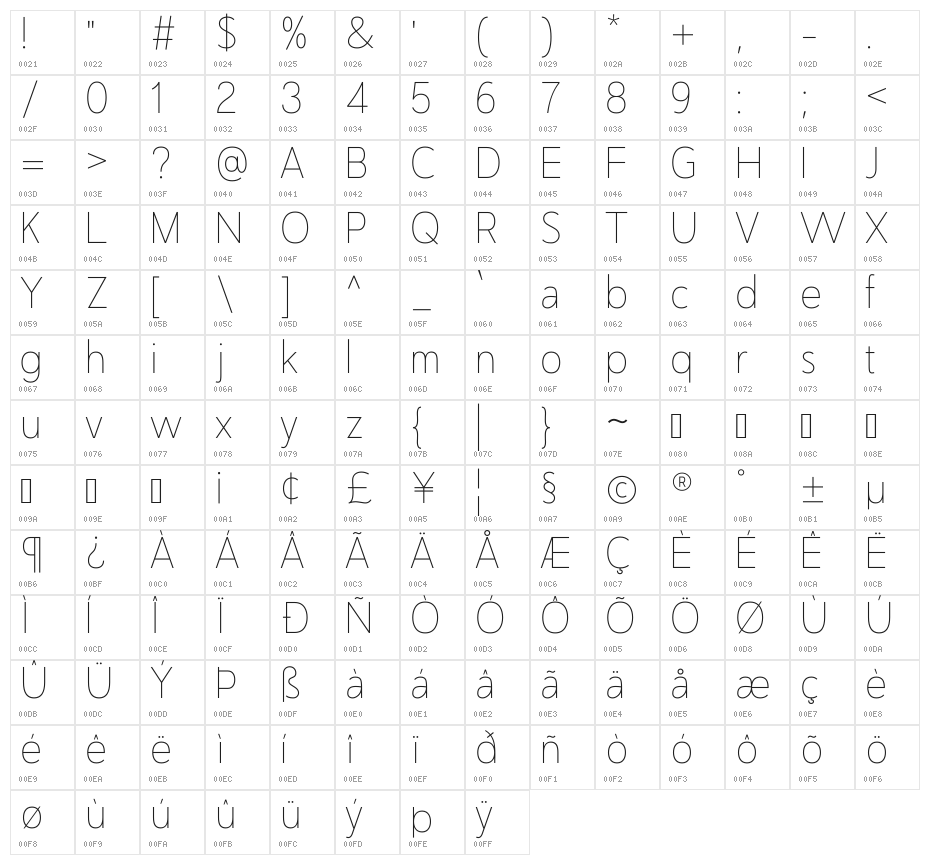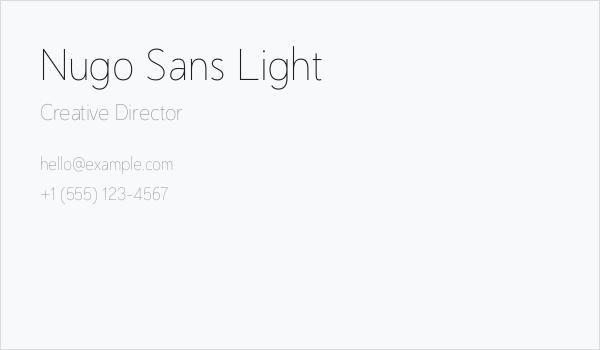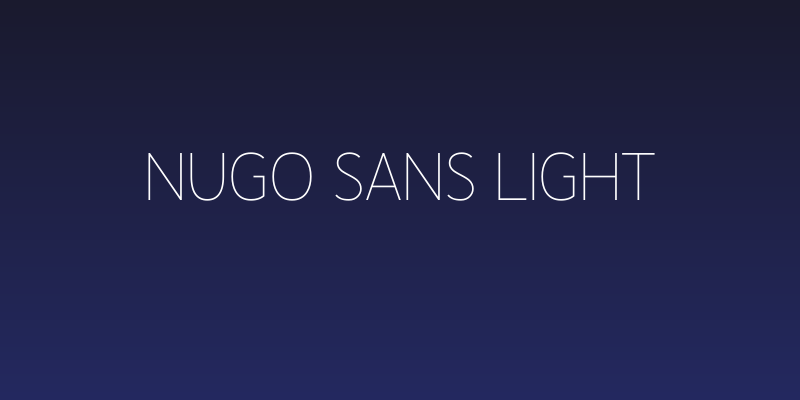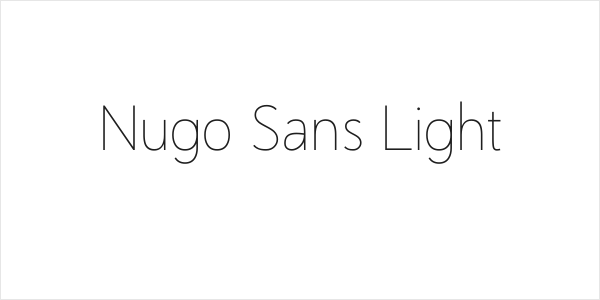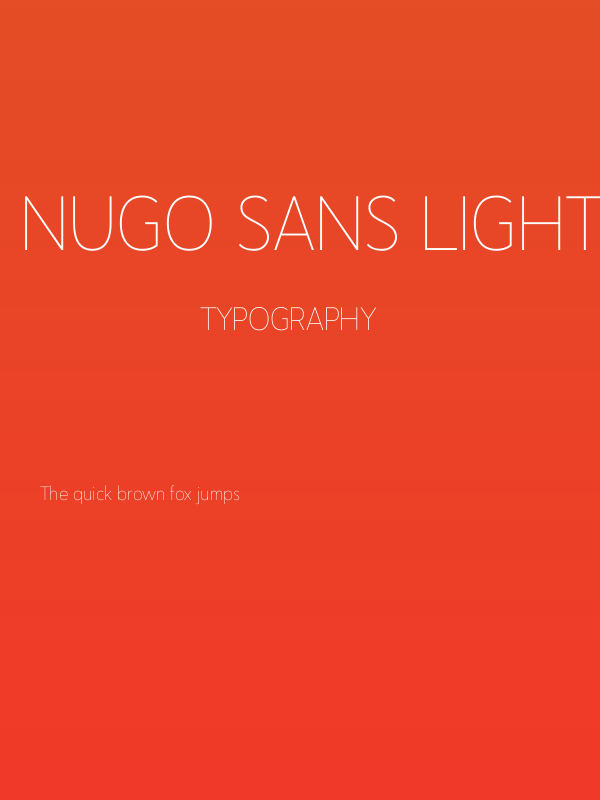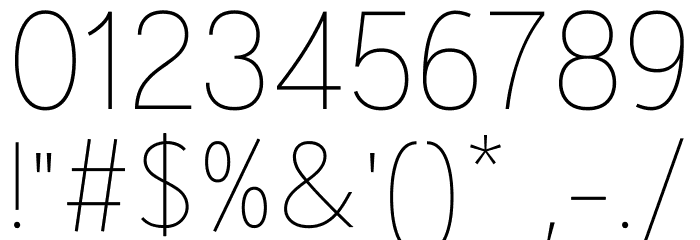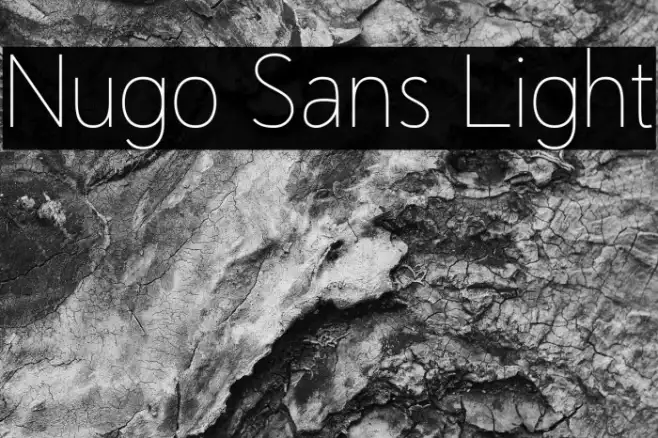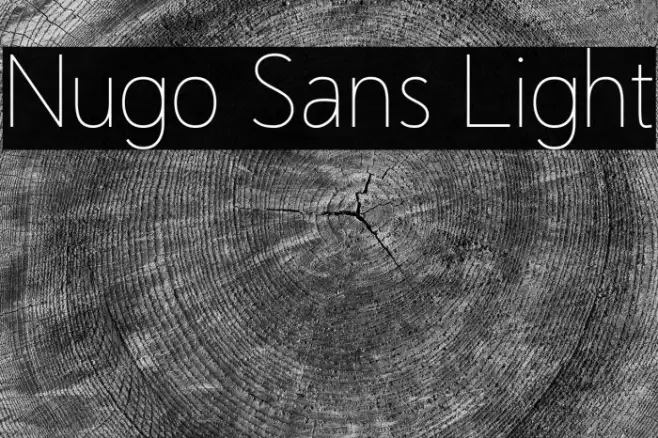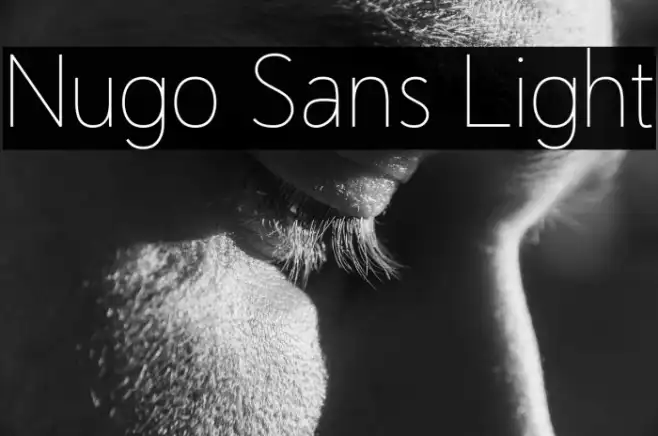
Nugo Sans Light Font
Nugo Sans Light Description
This font exhibits a clean and modern sans-serif style, characterized by its light weight and minimalistic design. The characters are evenly spaced with a uniform stroke width, providing a sleek and airy appearance. The uppercase and lowercase letters maintain a consistent height, contributing to a harmonious and balanced look. The numerals and special characters are designed with the same attention to detail, ensuring readability and versatility across various applications. This font's simplicity and elegance make it suitable for contemporary design projects.
| Proposed Projects | Ideal for use in digital interfaces, branding, advertising, and editorial design where a modern and clean aesthetic is desired. |